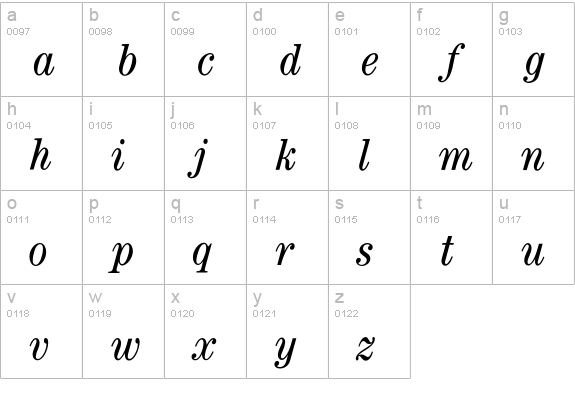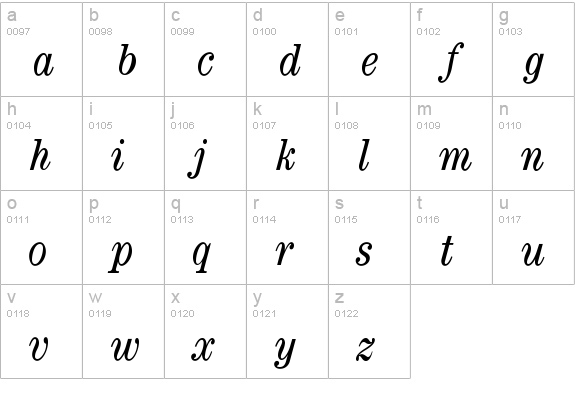
CenturyCondBookItalic Font Details
CenturyCondBookItalic is a timeless and elegant font that exudes sophistication and style. With its slender and slanted characters, this italic typeface adds a touch of flair to any design project. Perfect for creating a sense of refinement and class, CenturyCondBookItalic is a versatile font that can be used for various purposes, from elegant invitations to professional documents. The best part? CenturyCondBookItalic is completely free to download at FontsMarket.com. This means you can easily access this exquisite font without any cost, making it a valuable addition to your font collection. Don't miss out on the opportunity to enhance your designs with the beauty and grace of CenturyCondBookItalic - download it today and elevate your projects to new heights.